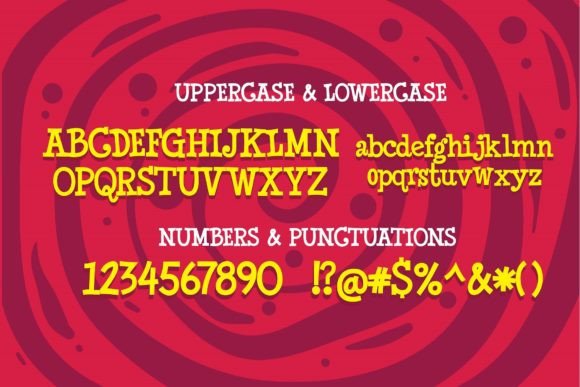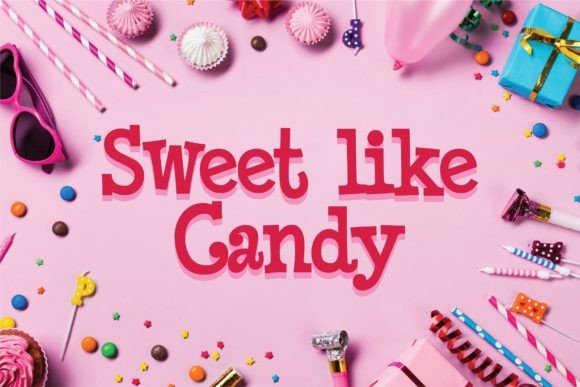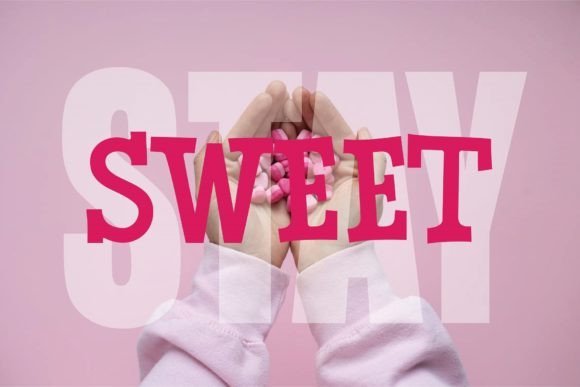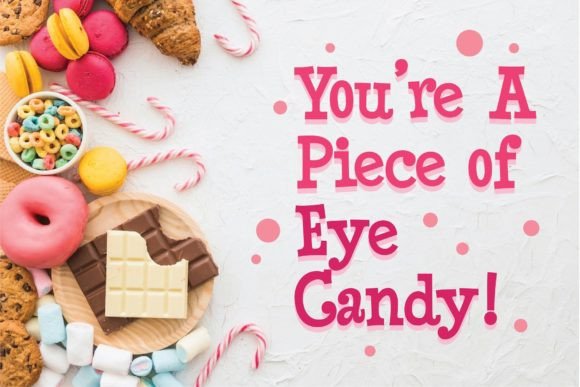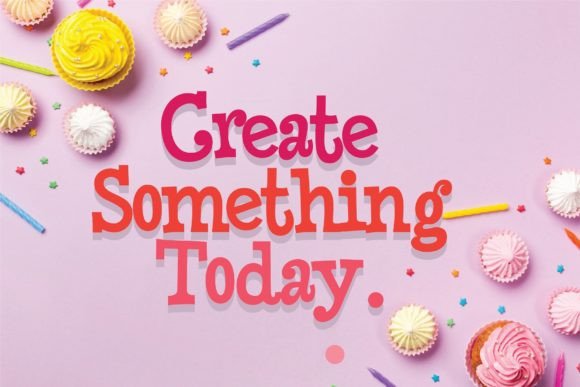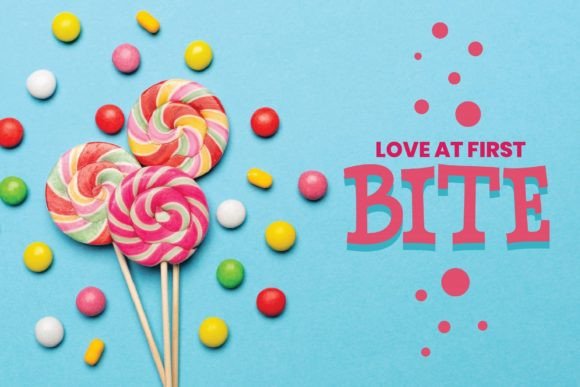
Berry Merry Font: A Playful, Retro Serif Display Font for Your Creative Projects
Are you looking for a font that can add a touch of playfulness and whimsy to your designs? Look no further than the Berry Merry Font. This delightful font is a perfect blend of retro charm and modern appeal, making it an excellent choice for a wide range of creative projects. In this article, we’ll take a closer look at the Berry Merry Font, its features, and how you can use it to elevate your designs.
What is Berry Merry Font?
Berry Merry Font is a playful, retro serif display font that’s inspired by the fabulous mid-century designs of the past. With its quirky and charming aesthetic, this font is perfect for adding a touch of nostalgia and personality to your designs. The font’s retro vibe is balanced with a modern twist, making it versatile enough to be used in a variety of contexts, from traditional print materials to digital applications.
Key Features of Berry Merry Font
So, what makes Berry Merry Font so special? Here are some of its key features:
- Playful and quirky aesthetic: Berry Merry Font has a unique and charming personality that’s sure to grab attention.
- Retro serif design: The font’s serif design is inspired by mid-century classics, giving it a timeless and sophisticated feel.
- Modern twist: Despite its retro inspiration, Berry Merry Font has a modern edge that makes it suitable for contemporary designs.
- Highly versatile: This font can be used for a wide range of applications, from headers and social media posts to posters, birthday cards, and more.
Uses for Berry Merry Font
So, how can you use Berry Merry Font in your creative projects? The possibilities are endless. Here are some ideas to get you started:
- Headers and titles: Use Berry Merry Font to create eye-catching headers and titles for your blog posts, articles, and website pages.
- Social media posts: Add a touch of personality to your social media posts with Berry Merry Font.
- Posters and flyers: Create bold and eye-catching posters and flyers with Berry Merry Font.
- Birthday cards and invitations: Use Berry Merry Font to create unique and personalized birthday cards and invitations.
- Magazines and publications: Berry Merry Font is perfect for magazine titles, section headings, and other display text.
- Packaging and branding: Use Berry Merry Font to create eye-catching packaging and branding materials that stand out.
Why Choose Berry Merry Font?
With so many fonts to choose from, why should you choose Berry Merry Font? Here are a few reasons:
- Unique and distinctive: Berry Merry Font has a unique and distinctive personality that will set your designs apart.
- High-quality design: The font is designed with high-quality craftsmanship, ensuring that it looks great in any context.
- Versatile: This font can be used for a wide range of applications, making it a great addition to any designer’s toolkit.
In conclusion, Berry Merry Font is a playful, retro serif display font that’s perfect for adding a touch of whimsy and personality to your designs. With its unique and distinctive aesthetic, high-quality design, and versatility, this font is an excellent choice for designers and crafters looking to elevate their creative projects. Whether you’re working on a traditional print project or a digital application, Berry Merry Font is sure to impress.